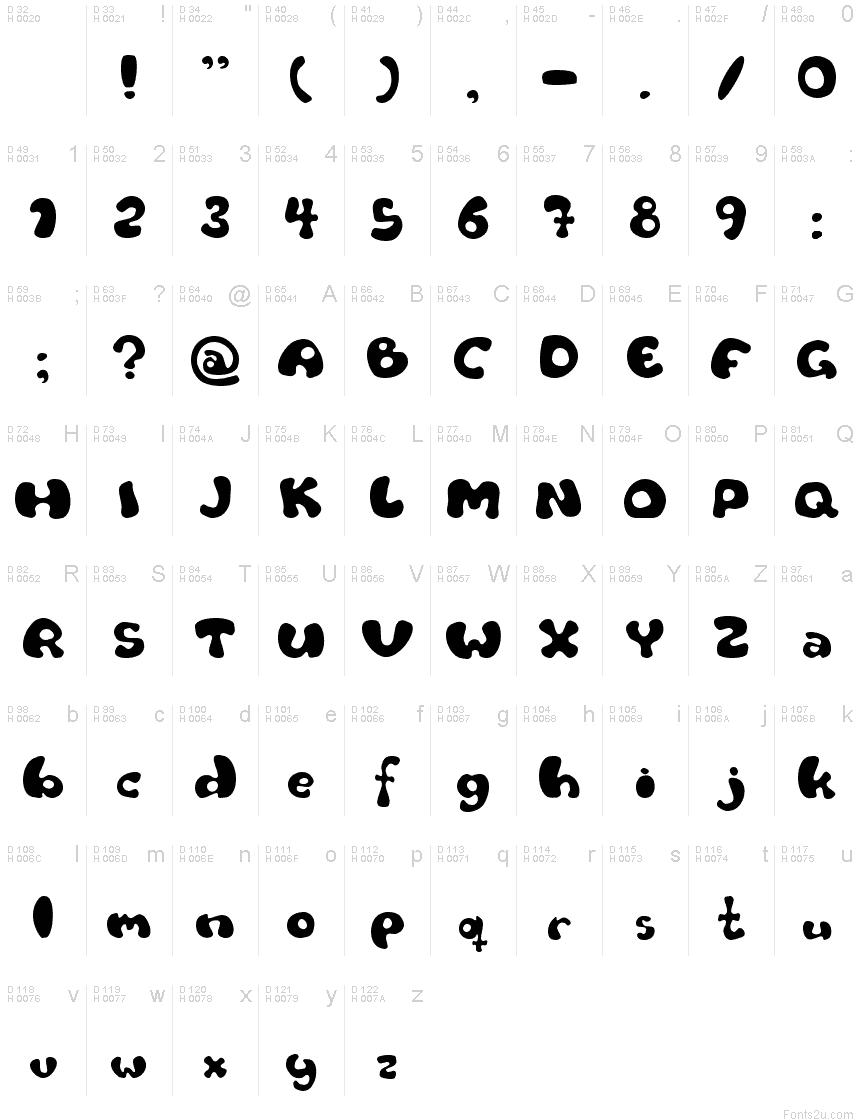
Flat tyre
Flat Tyre font by Thomas Rogerstam is a free comic display typeface with letters that look puffed-up, inky, and delightfully off-balance. Each character feels hand-squeezed, with soft curves and chunky blobs that wobble just enough to feel playful without becoming unreadable. The overall texture is bold and in-your-face, like signage drawn with an overloaded marker that bled slightly into the paper.
Using Flat Tyre, headlines instantly gain a bouncy, cartoon energy that grabs attention from the first word. This free font works beautifully for kids’ posters, party invitations, comic zines, goofy logos, YouTube thumbnails, and playful packaging. Keep it large so the bulbous shapes can breathe, and pair it with a clean geometric sans for body text to keep your layouts fun but readable.